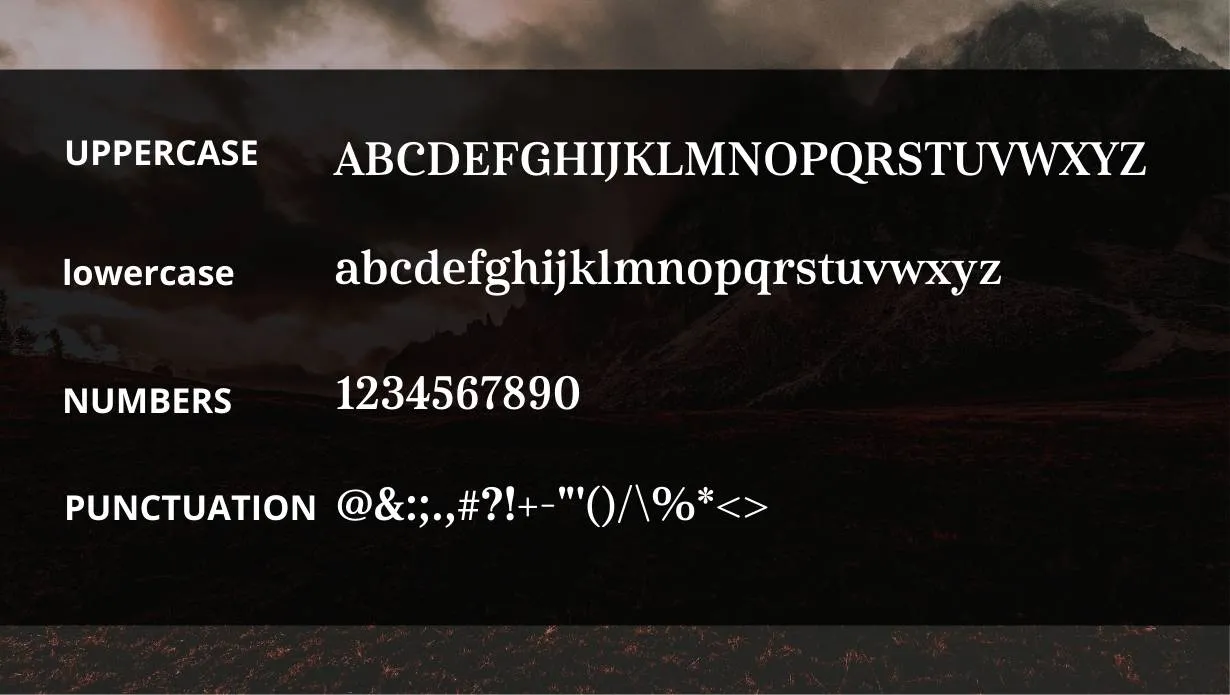
Cabrito Font is a serif typeface designed by Argentinean type designer Alejandro Paul. The design is based on the popular Futura typeface, but with some subtle changes that give it a more humanistic feel.
While Cabrito Typeface is most commonly used for display purposes, it can also be used for body text in smaller sizes. The typeface has a very clean and modern look that makes it perfect for use in both digital and print design.
View of Cabrito Font
Cabrito Font Info
| Name | Cabrito Font |
| Designer | Alejandro Paul |
| Style | Serif |